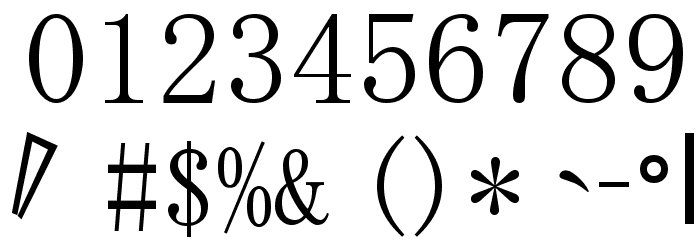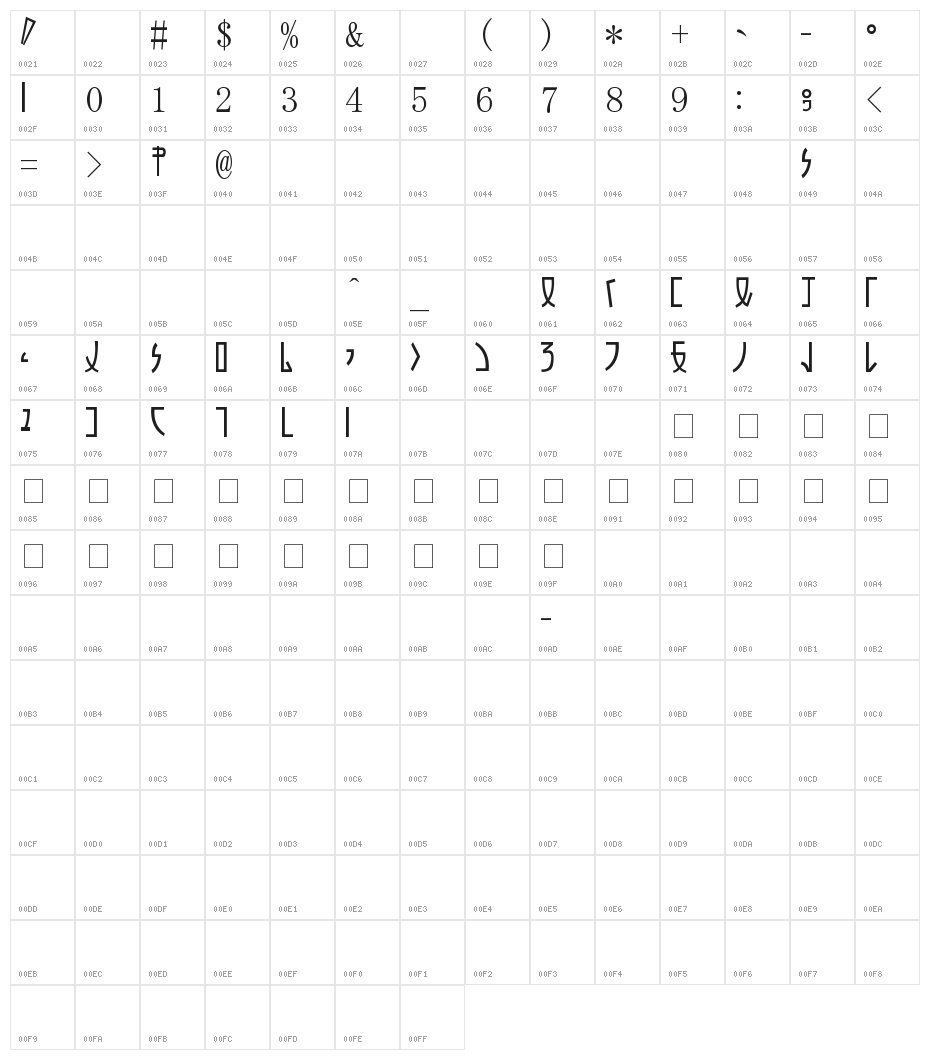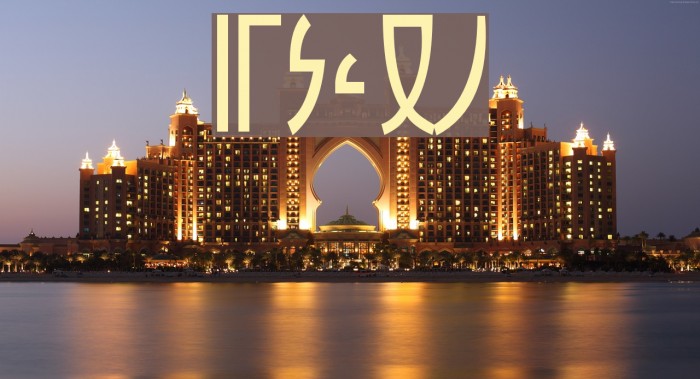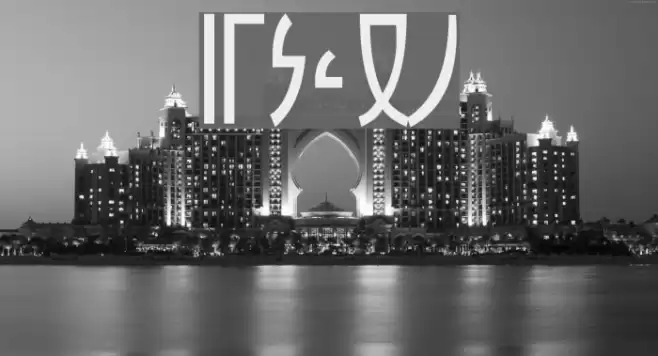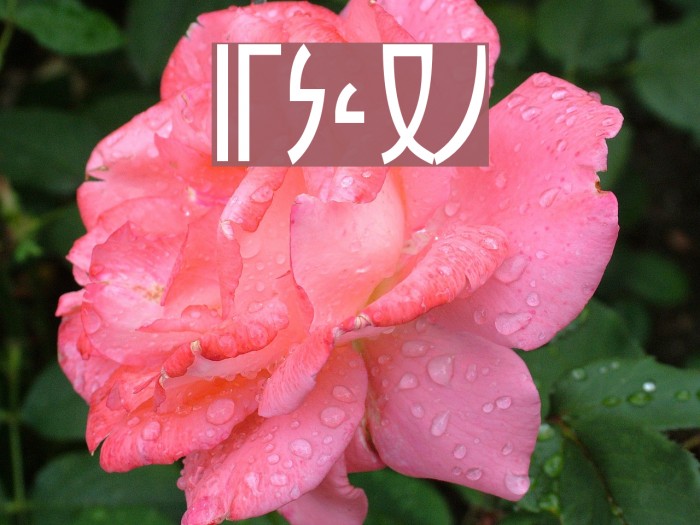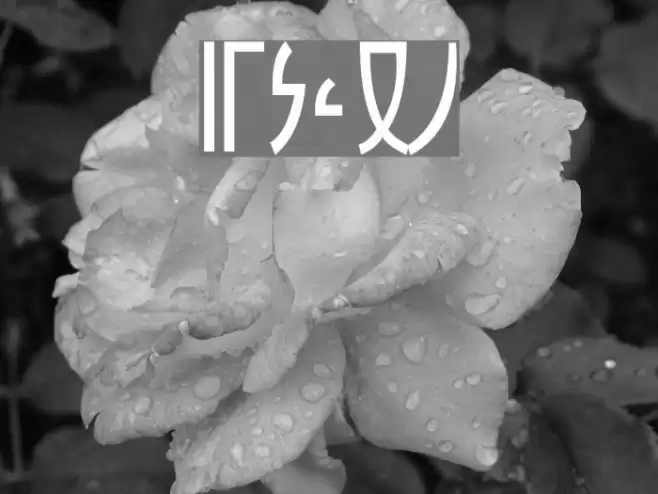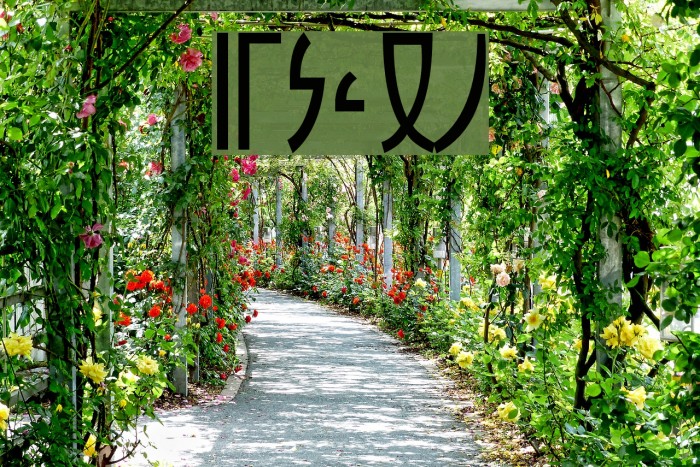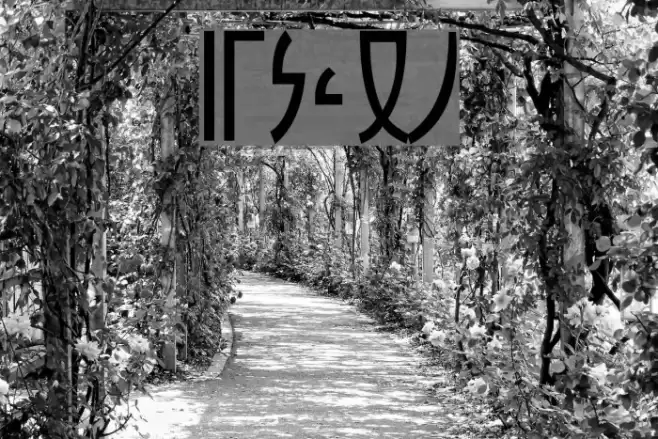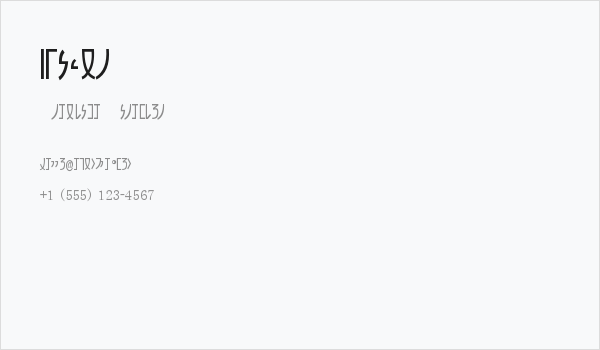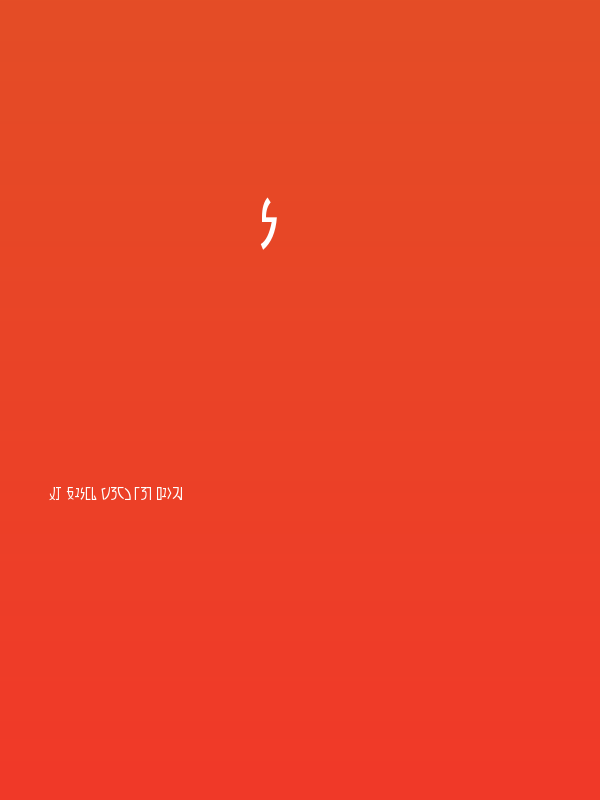
zfigar Font
zfigar Description
This font features a unique and artistic design with a blend of geometric and abstract elements. The uppercase letters are characterized by sharp angles and unconventional shapes, creating a modern and avant-garde appearance. The lowercase letters maintain a similar style, with some characters having unexpected curves and lines that add to the font's distinctiveness. The numerals are bold and clear, ensuring readability while maintaining the overall artistic theme. Special characters are creatively designed, fitting seamlessly with the rest of the font. This font is ideal for projects that require a bold and artistic statement, such as posters, album covers, or branding for creative industries.
ZFIGAR UPPERCASE
ZFIGAR LOWERCASE
ZFIGAR OTHER CHARS